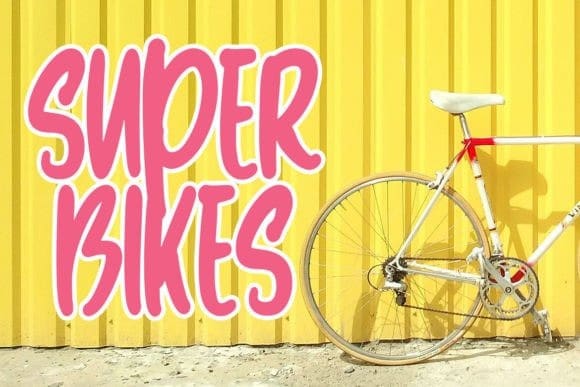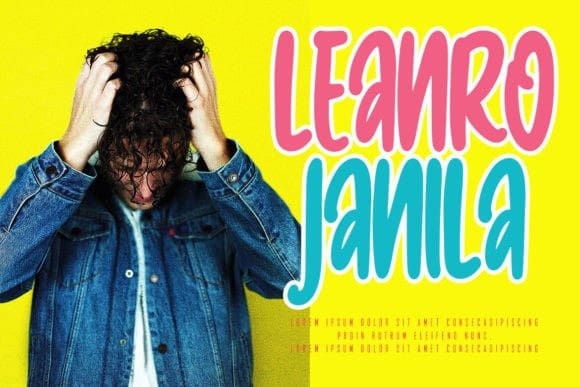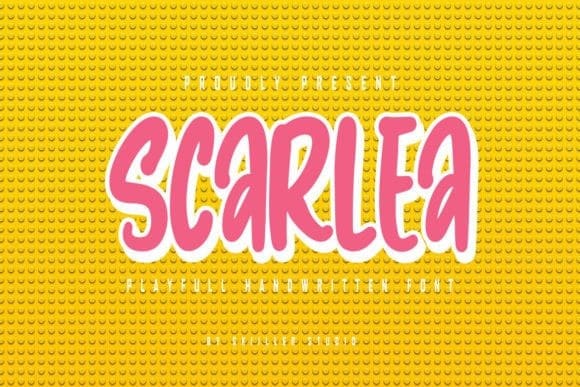
Scarlea Display Font
Scarlea Display Font is a playful and cool lovely font. This font is perfect for children themed designs, especially when combined with bright colors.